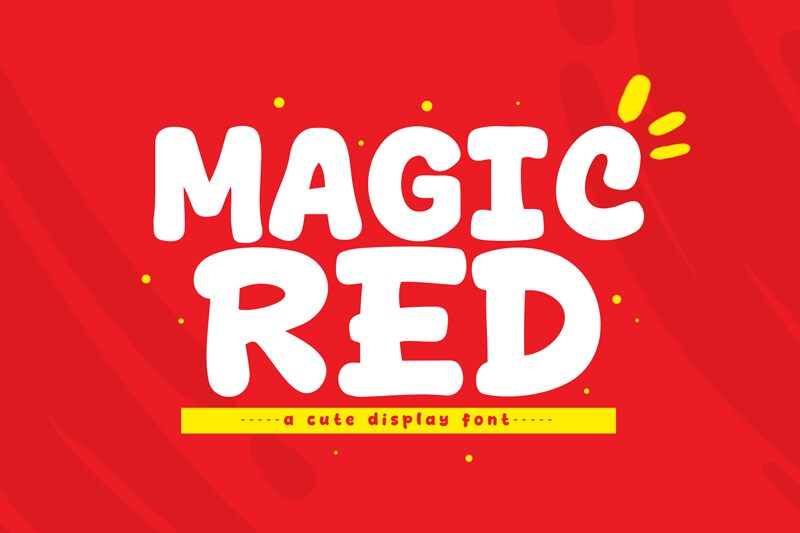
Magic Red font family is a free playful typeface by Khurasan, inspired by cartoon style typography. The family consists of 2 fonts with rounded shapes and a smooth appearance that evokes a whimsical, friendly vibe. Curvy, artistic, and informal, Magic Red evokes a sense of casual fun and creativity in all the designs it adorns.
Magic Red would look great in a variety of fun and artistic design projects. This includes display posters, funny advertising copy, children’s book covers, websites, social media posts, greeting cards, or packaging designs. Combine both fonts to create dynamic combinations to catch the attention of all readers.